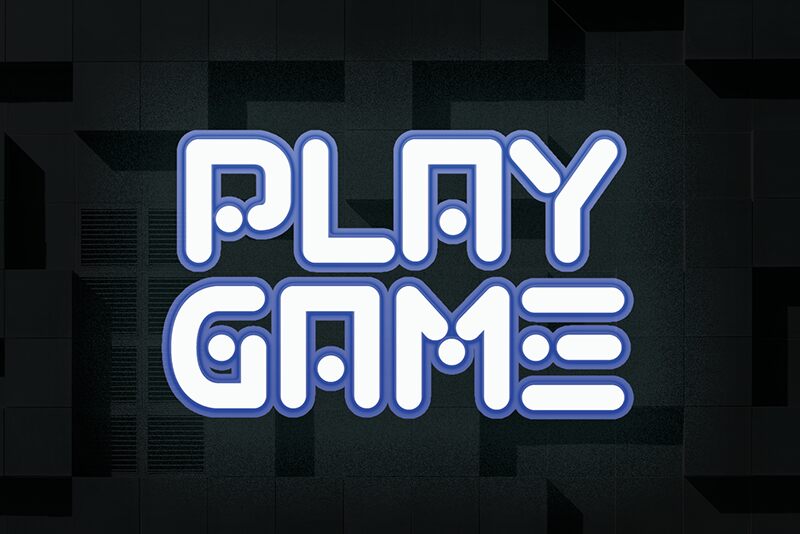
Play Game font by Erik Studio exudes a futuristic, techno feel designed to captivate. This free font radiates a geometric and structured aesthetic, making it an excellent choice for modern digital applications. Its dynamic, tech-inspired design gives it an edge in any context where innovation and technology are at the forefront.
Ideal for gaming projects, tech branding, app interfaces, websites, and digital advertisements, this font injects a modern, forward-thinking flair. It can also be effectively used in posters, flyers, logo designs, book covers, and videos to capture a tech-savvy audience.
Play Game is a bold and striking display font that embodies a modern and futuristic aesthetic. This free font adds a vibrant touch to your creative projects, ensuring they stand out in any context.